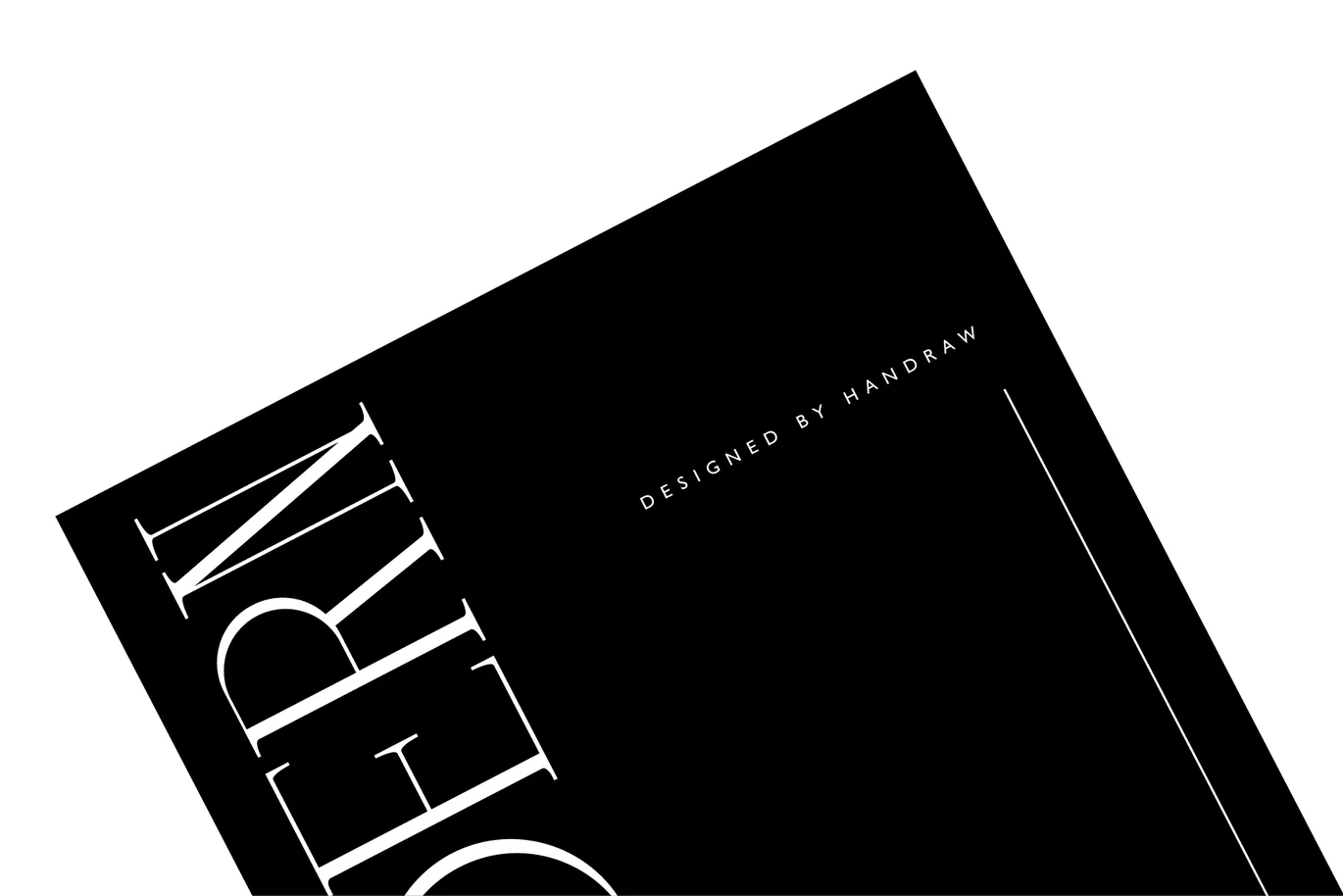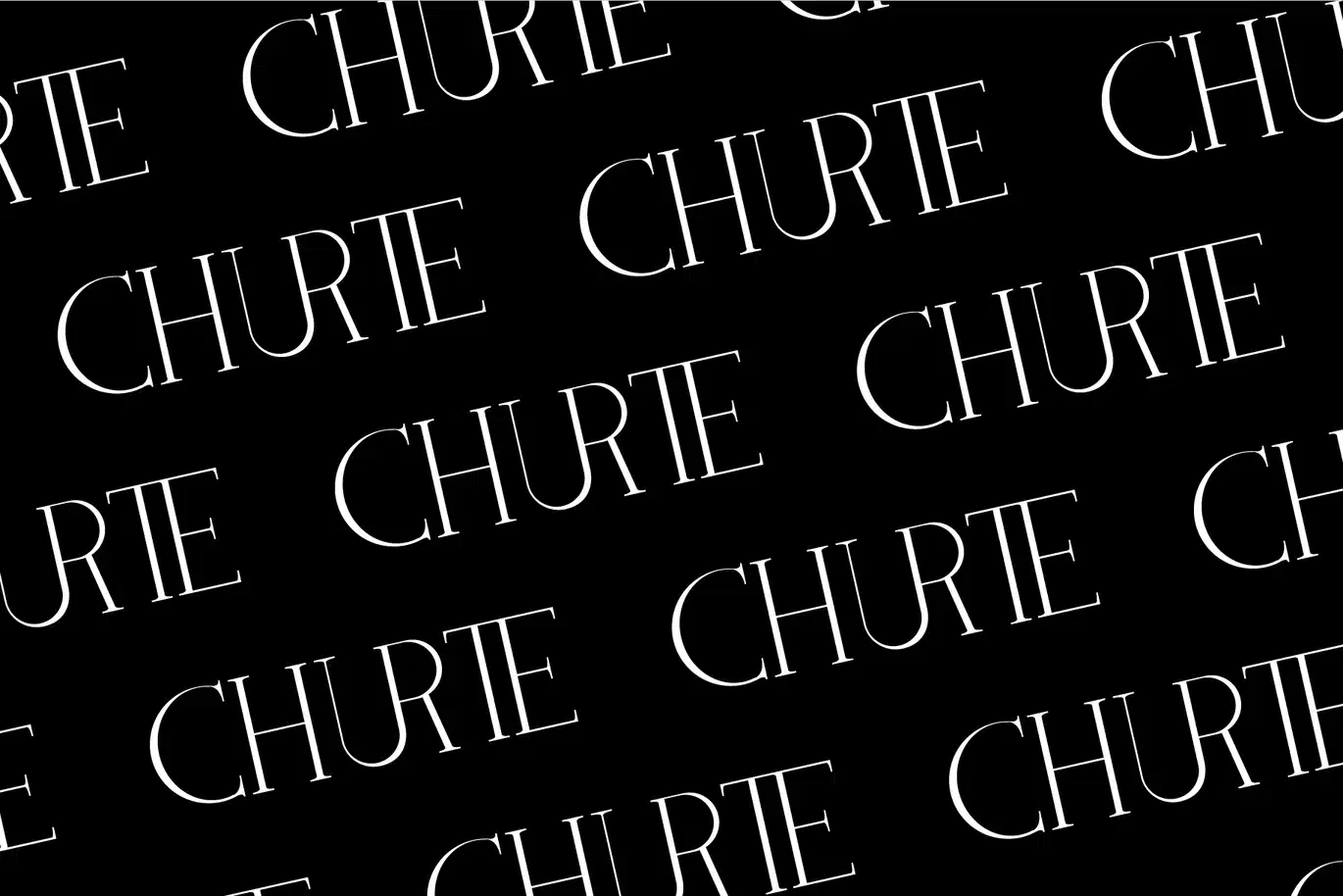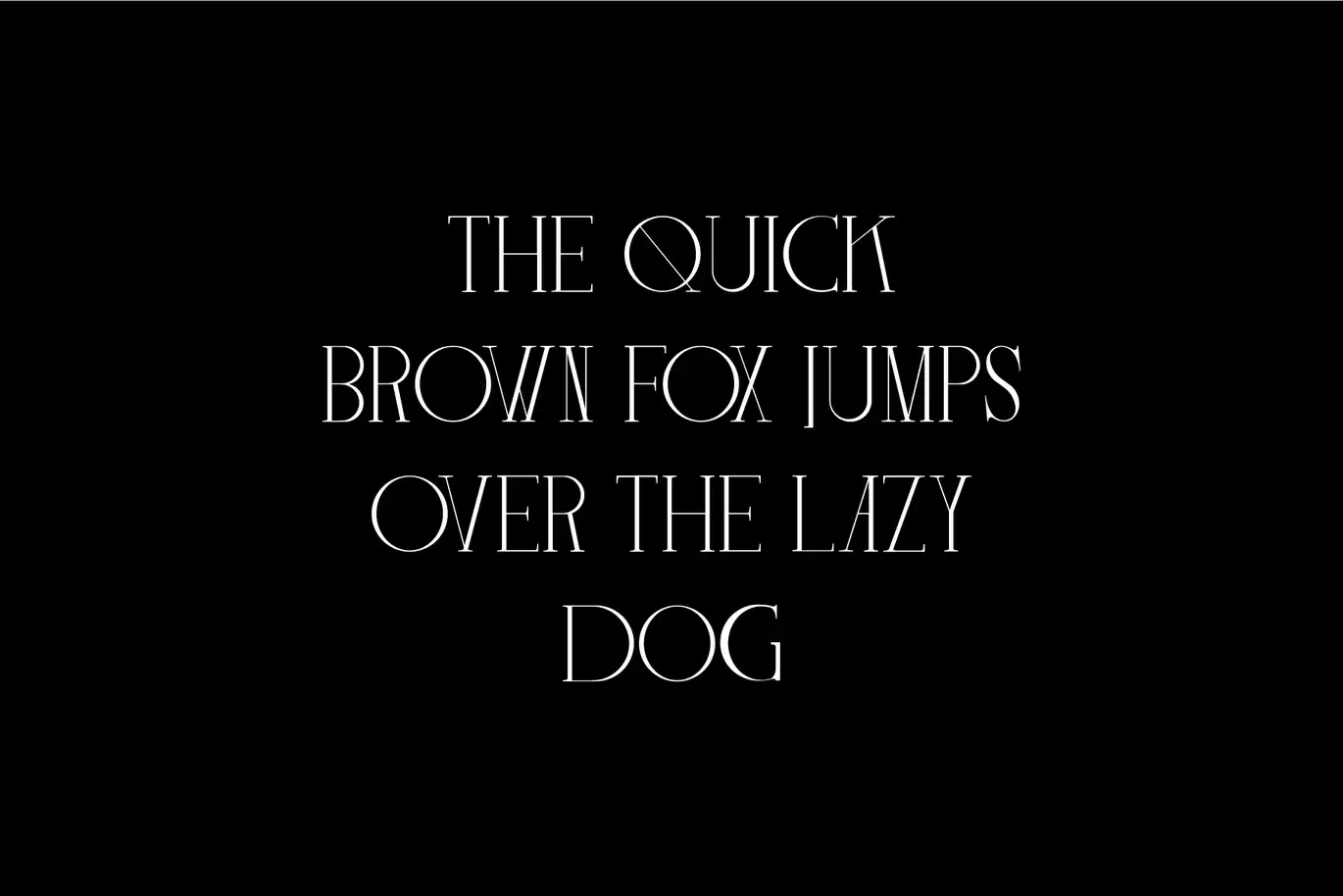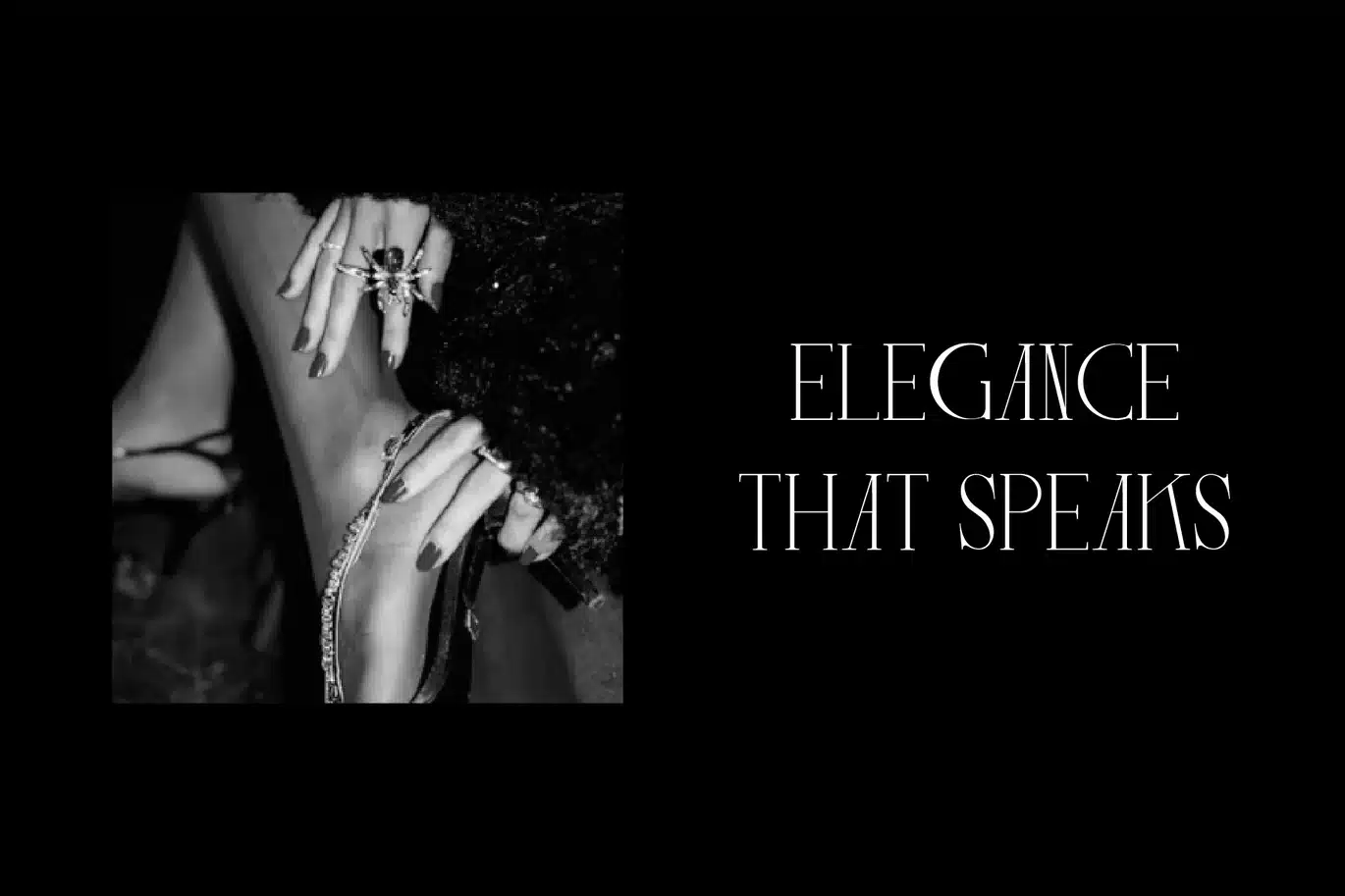
Churte – Modern Serif Font
Churte is a distinctive display typeface that blends the classical elegance of serif design with a modern, expressive flair. Its sharp yet graceful serifs give each character a refined presence, making it suitable for headings, branding, and editorial use where a strong visual impact is desired. The letterforms exhibit careful contrast between thick and thin strokes, emphasizing readability while maintaining a stylish, sophisticated aesthetic.